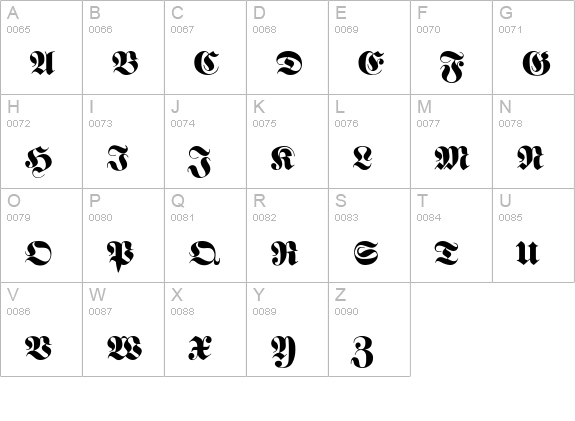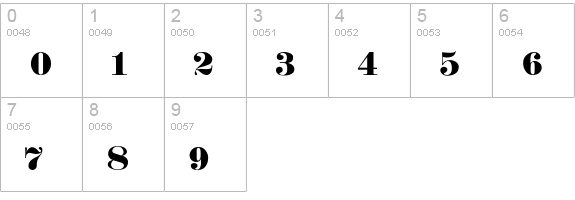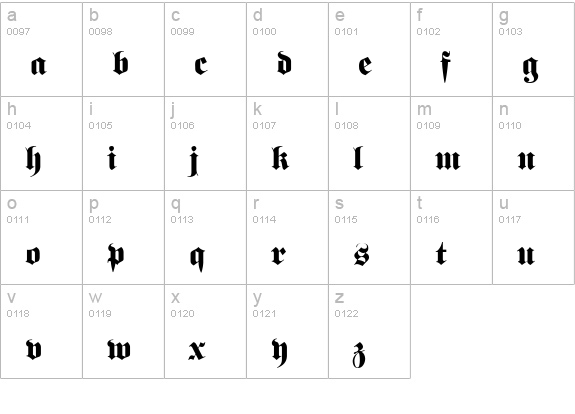
Fellowmaiden-Semibold Font Details
Fellowmaiden-Semibold is a sub-bold, structured variant in the Fellowmaiden typeface family \xE2\x80\x94 well suited to sub-headlines and emphasised passages.
Fellowmaiden-Semibold font exudes an elegant and sophisticated charm with its bold yet graceful curves. This versatile typeface strikes the perfect balance between modernity and tradition, making it ideal for a wide range of design projects. The semi-bold weight adds a touch of strength and authority, while still maintaining a sense of refinement. What sets Fellowmaiden-Semibold font apart is not just its striking aesthetics, but also the fact that it is available for free download at FontsMarket.com. This means that designers and creatives can easily access this beautiful typeface without any cost, making it a valuable addition to any font library. Whether you're working on branding, editorial design, or any other creative endeavor, Fellowmaiden-Semibold font is sure to elevate your projects with its timeless appeal and effortless sophistication.